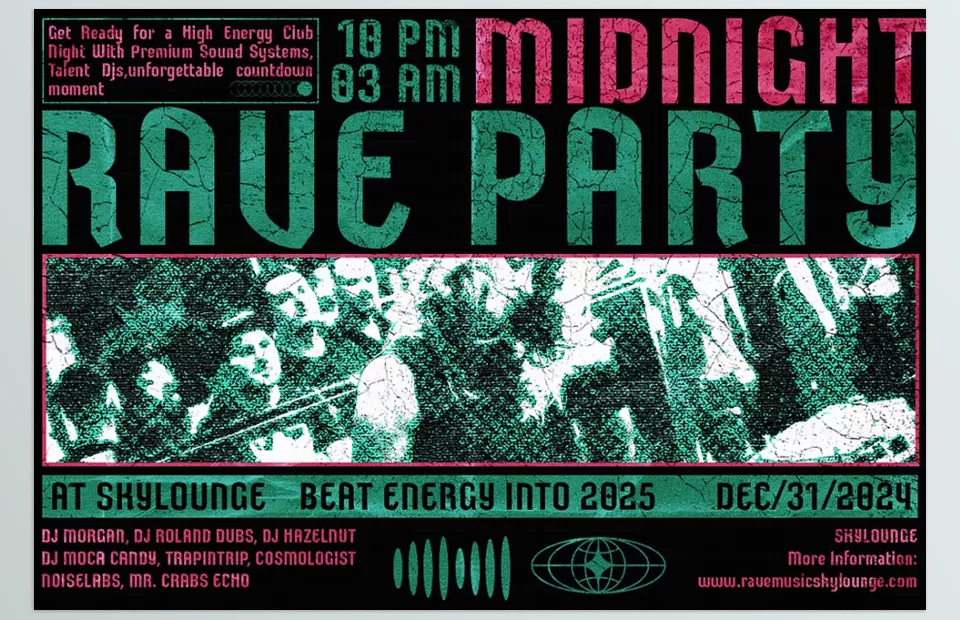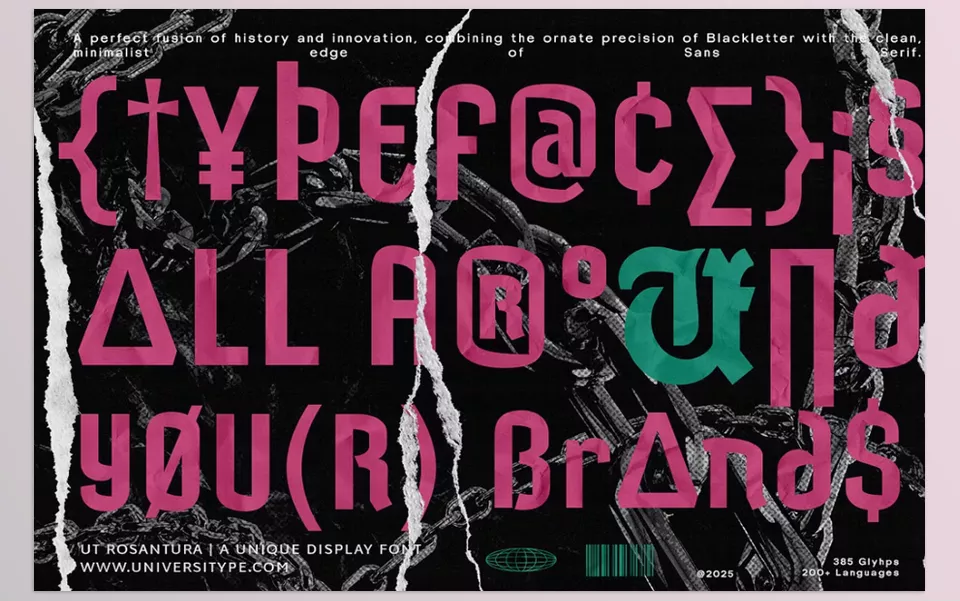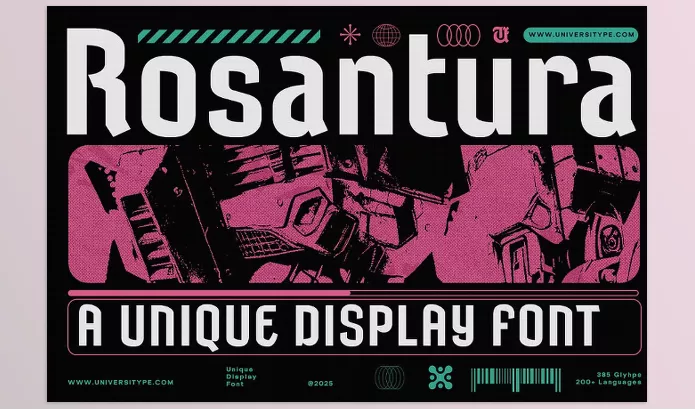
UT Rosantura A Unique Display Font is a unique and elegant modern font which fuses the intricate Blackletter with the graceful Sans Serif. This font is tha adapable typeface for graphic designers, foretelling universally appealing designs, brand identity, event advertisements and prints tailored for any device.
Universitype – UT Rosantura A Unique Display Font Features
• Diversity of Use: Abundant branding features unlimited promo events and requires all media formats, including print and digital.
• Capable of Global Reach: Primarily suited for over 200 supported languages.
• Rich Glyph Freedom: Nurtured with 385 glyphs enabling design unbounded use for daring creativity.
Preview UT Rosantura A Unique Display Font
Image 1: Stand out and say less to go the extra mile with the loud-speech font, designed for the wise.
UT Rosantura A Unique Display Font - Stand out and say less to go the extra mile with the loud-speech font, designed for the wise.
Image 2: Show off with font strikingly capturing both tradition and modernity and designed perfectly to make your work stand out.
UT Rosantura A Unique Display Font - Show off with font strikingly capturing both tradition and modernity and designed perfectly to make your work stand out.